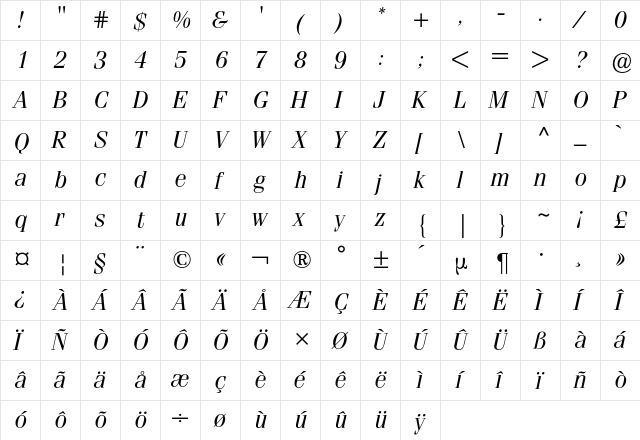
Fenice BQ Regular
Design Context for Fenice BQ Typeface
Fenice BQ takes a measured approach to typography — its balanced proportions and neutral character make it a reliable workhorse for both digital and print work.